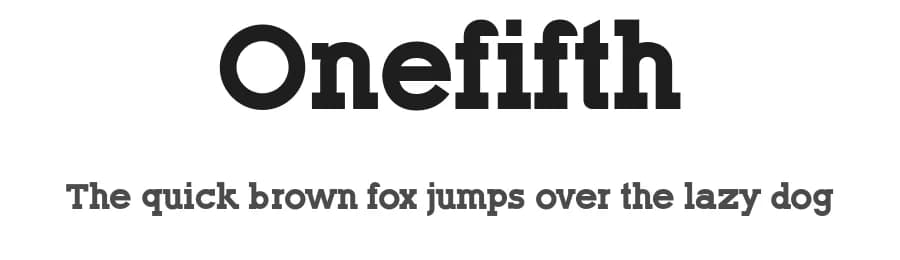
About Onefifth Font
Just wanted to create a font thatΒs bolder than Rockwell. Based on five squares.
Onefifth ships with 1 OpenType feature you can switch on in apps that support them (Illustrator, InDesign, Affinity, Figma, CSS font-feature-settings).
Onefifth Font is a versatile serif font that works for both headings and body text. Pair it with a contrasting sans-serif or slab serif font to add visual interest and a clear distinction between titles and body copy.